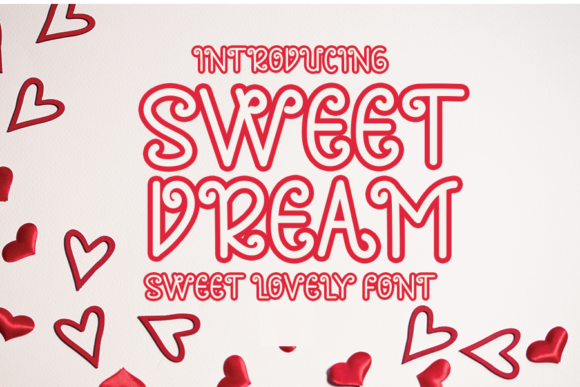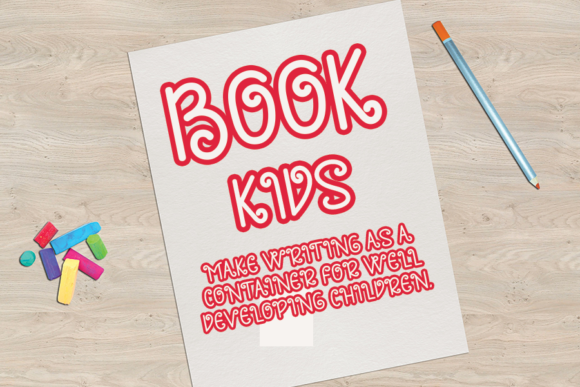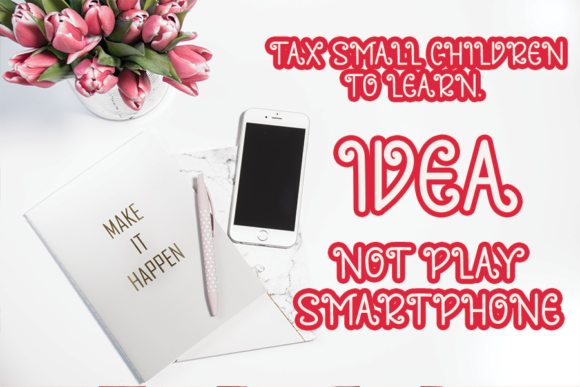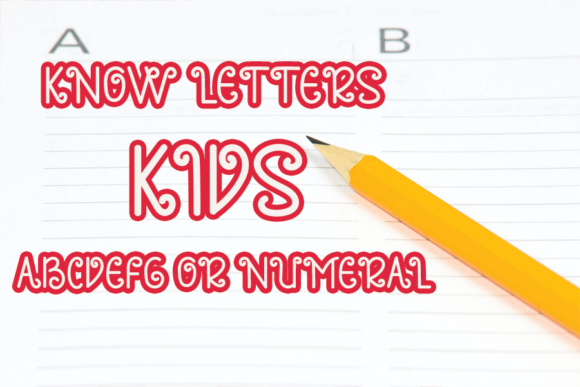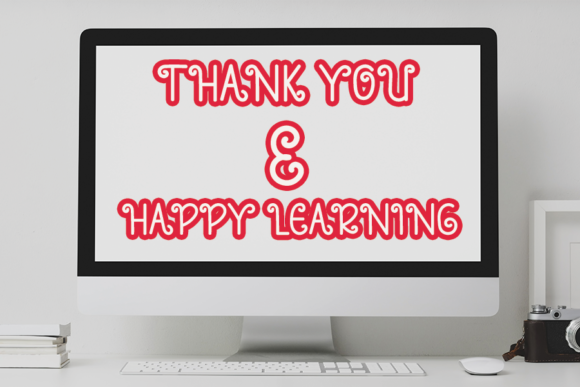
Sweet Dream Font
About Sweet Dream Font
Sweet Dream is a gorgeous and sweet handwritten font. Fall in love with its incredibly versatile style and use it to create gorgeous wedding invitations, beautiful stationary art, eye-catching social media posts, and much more!